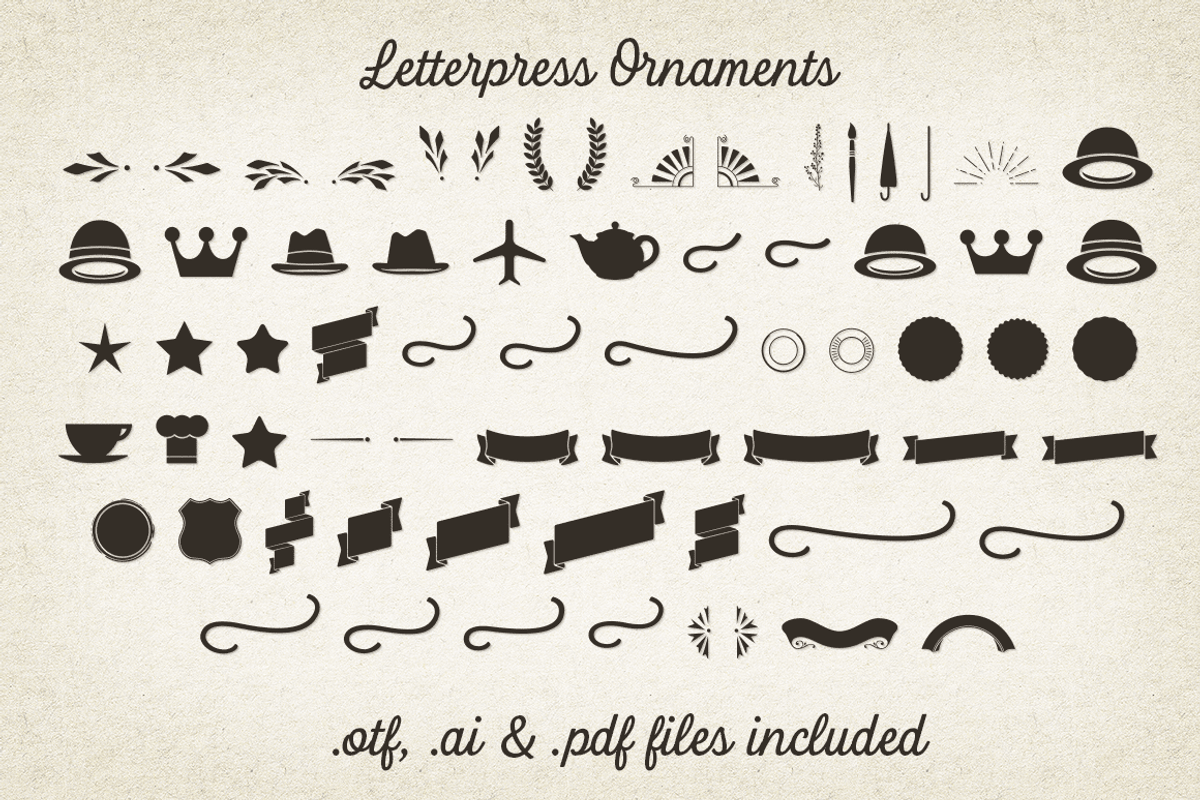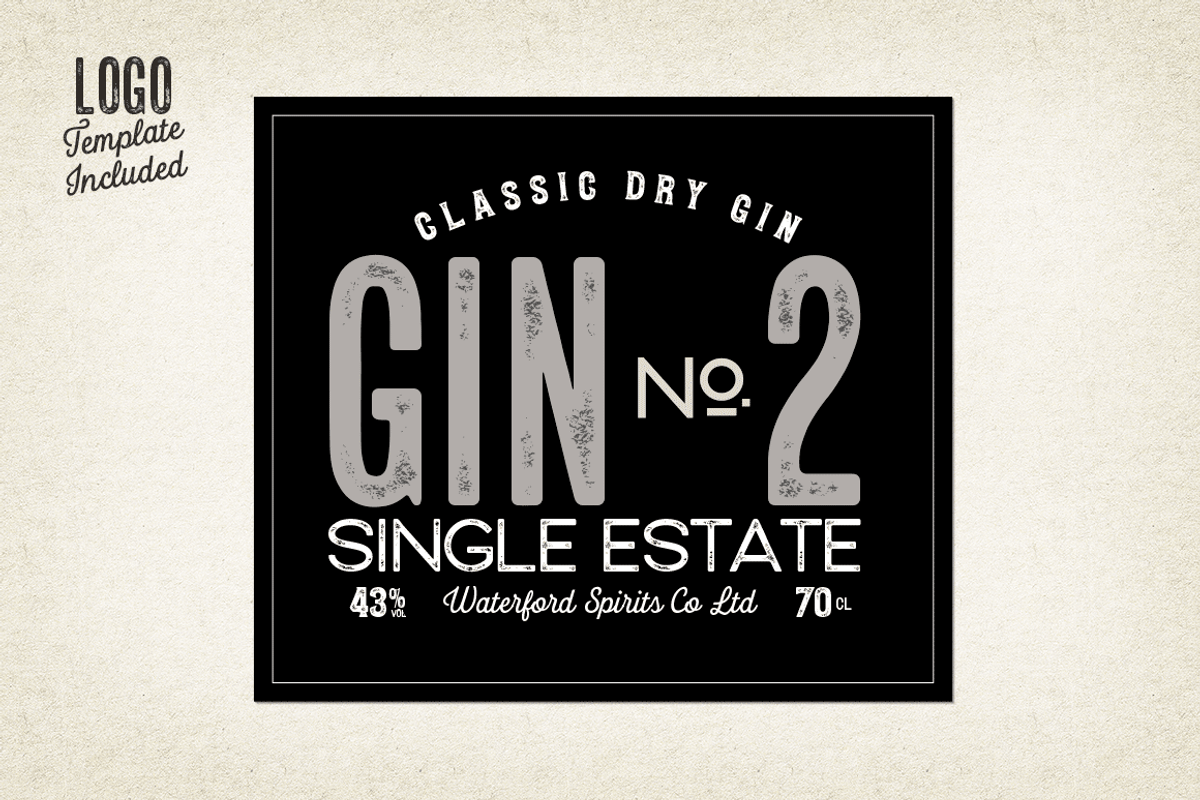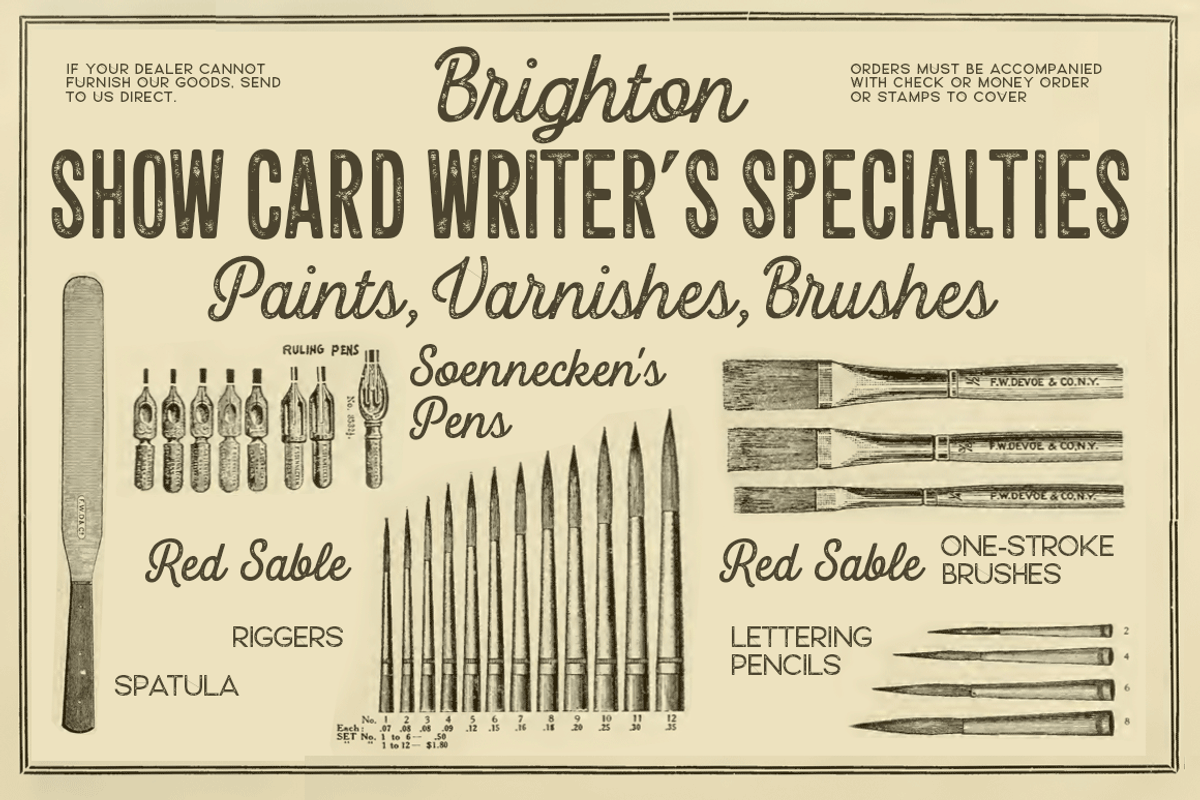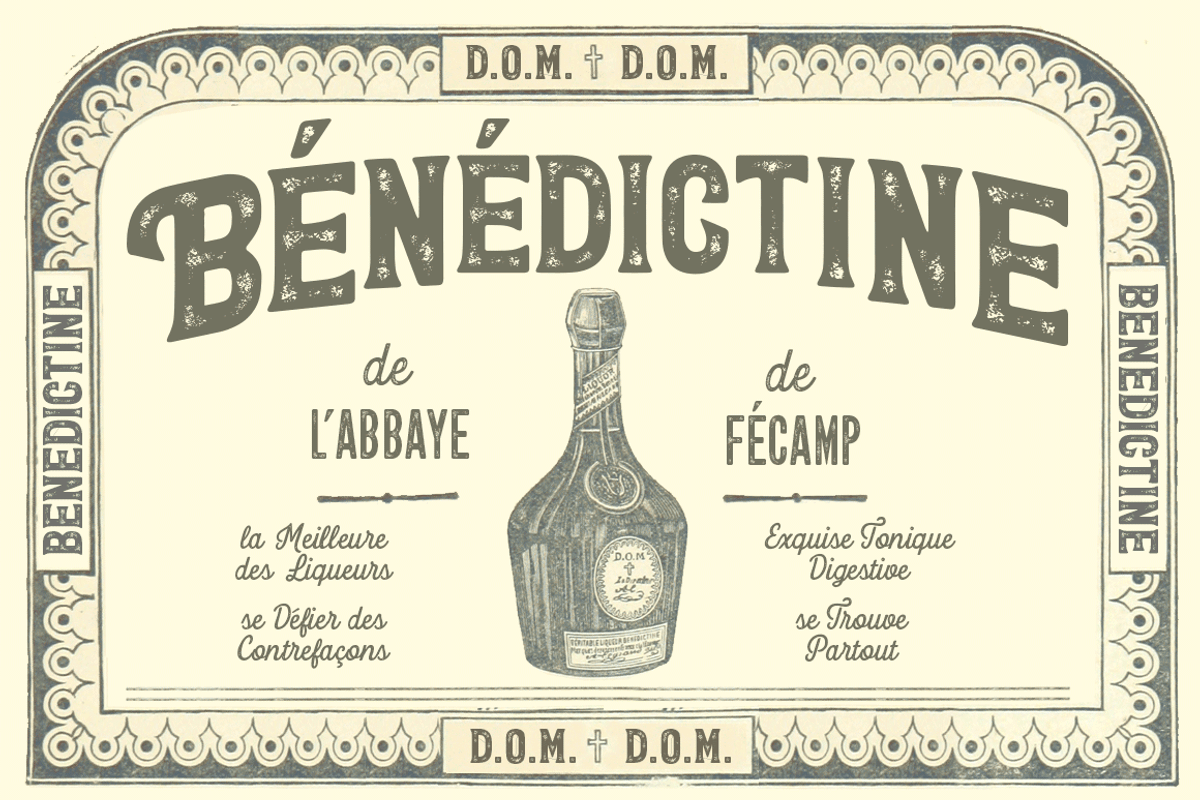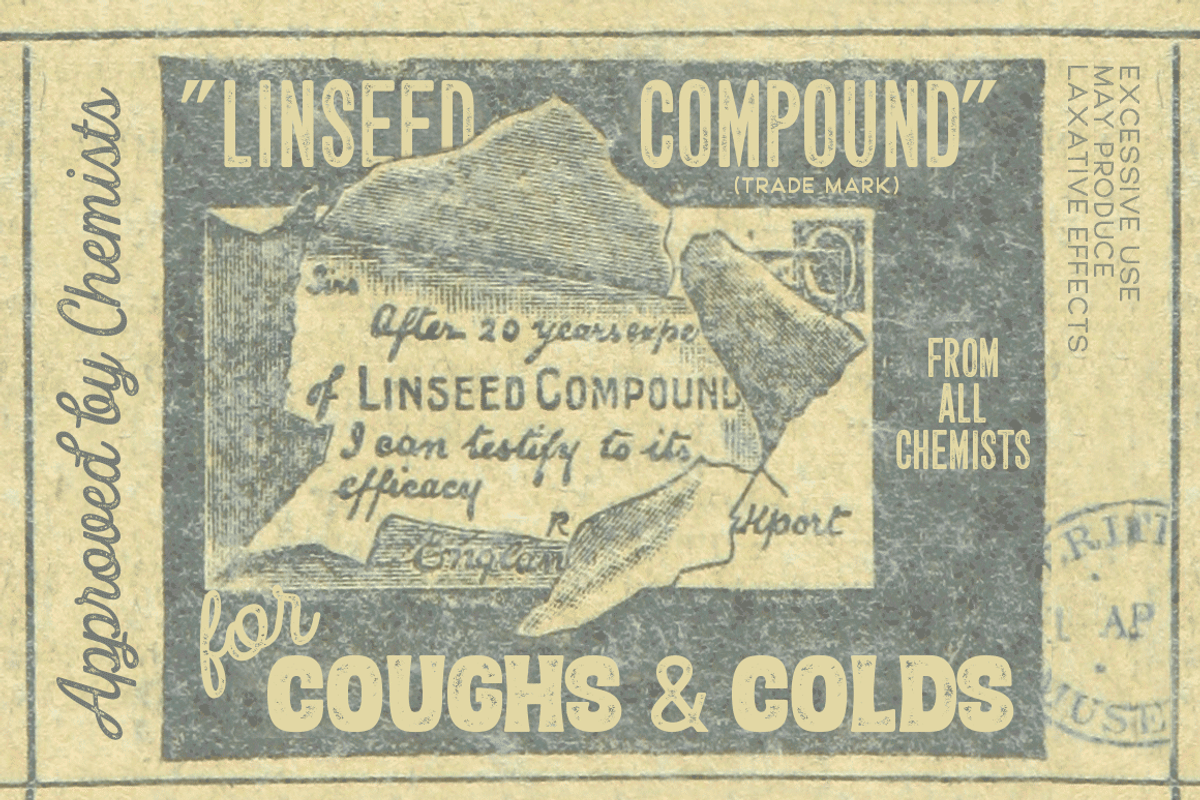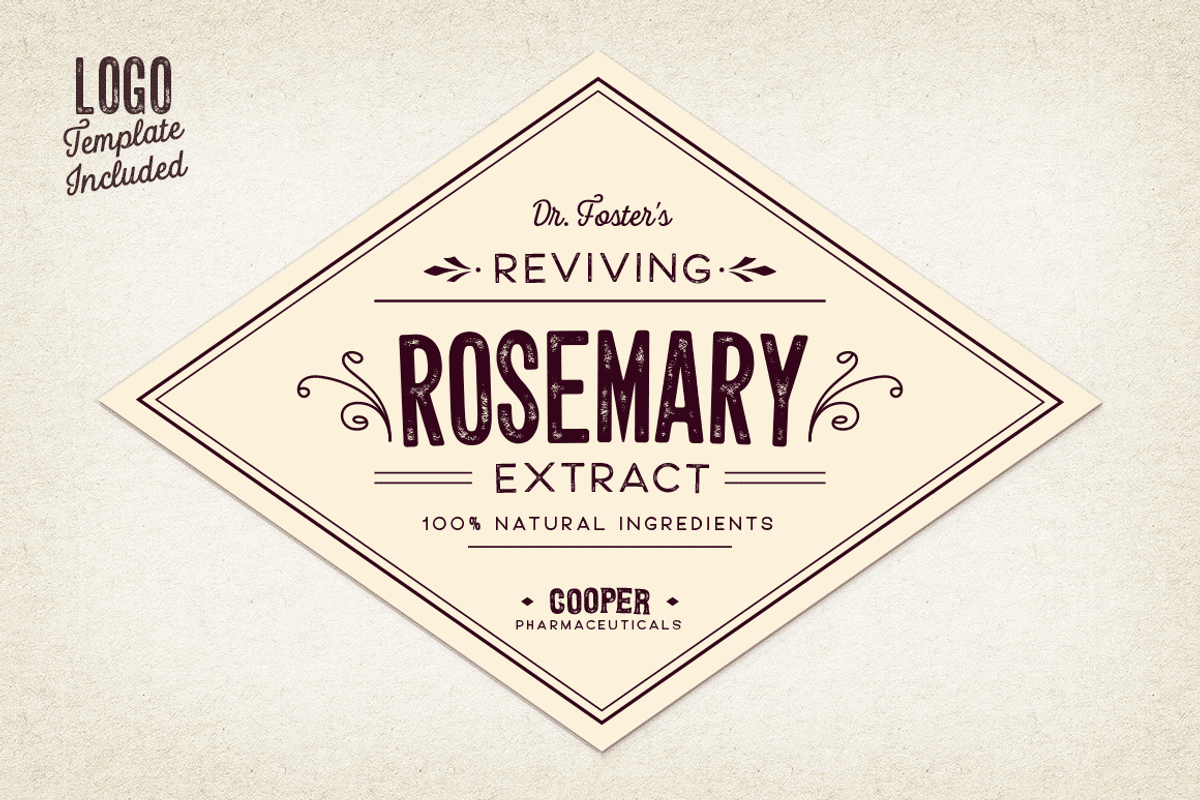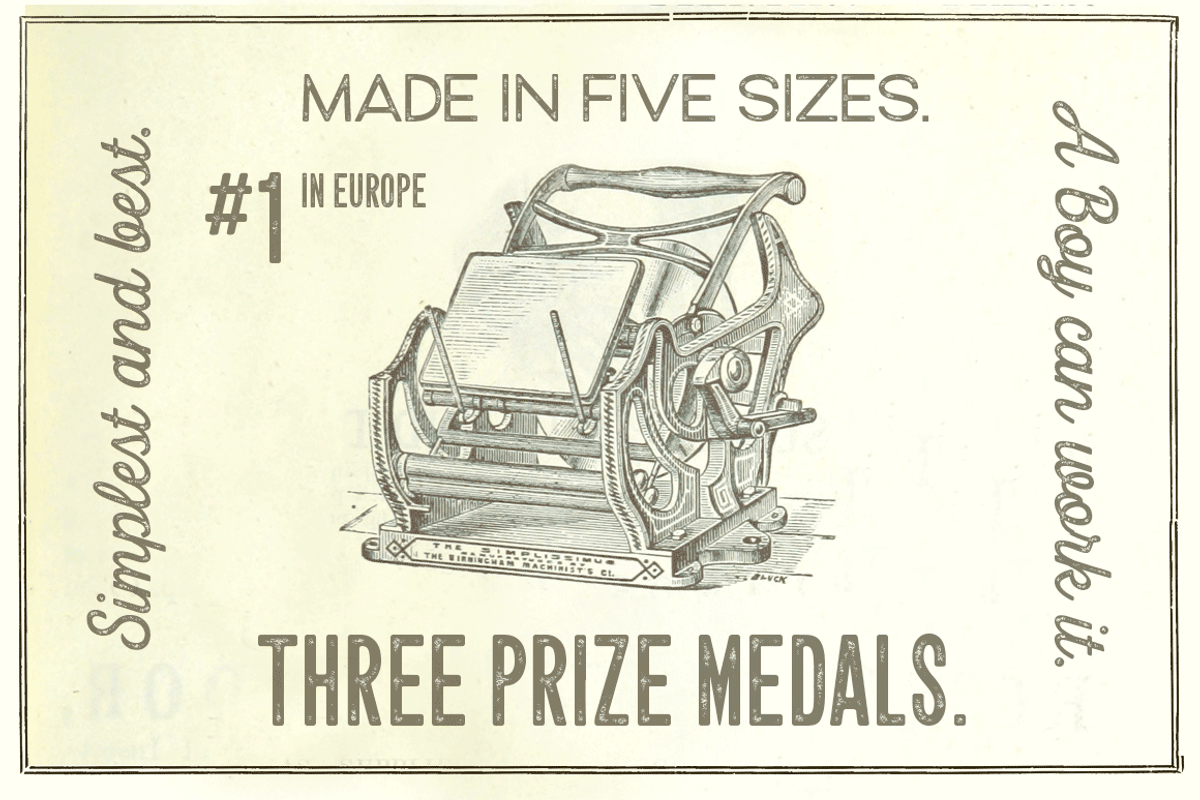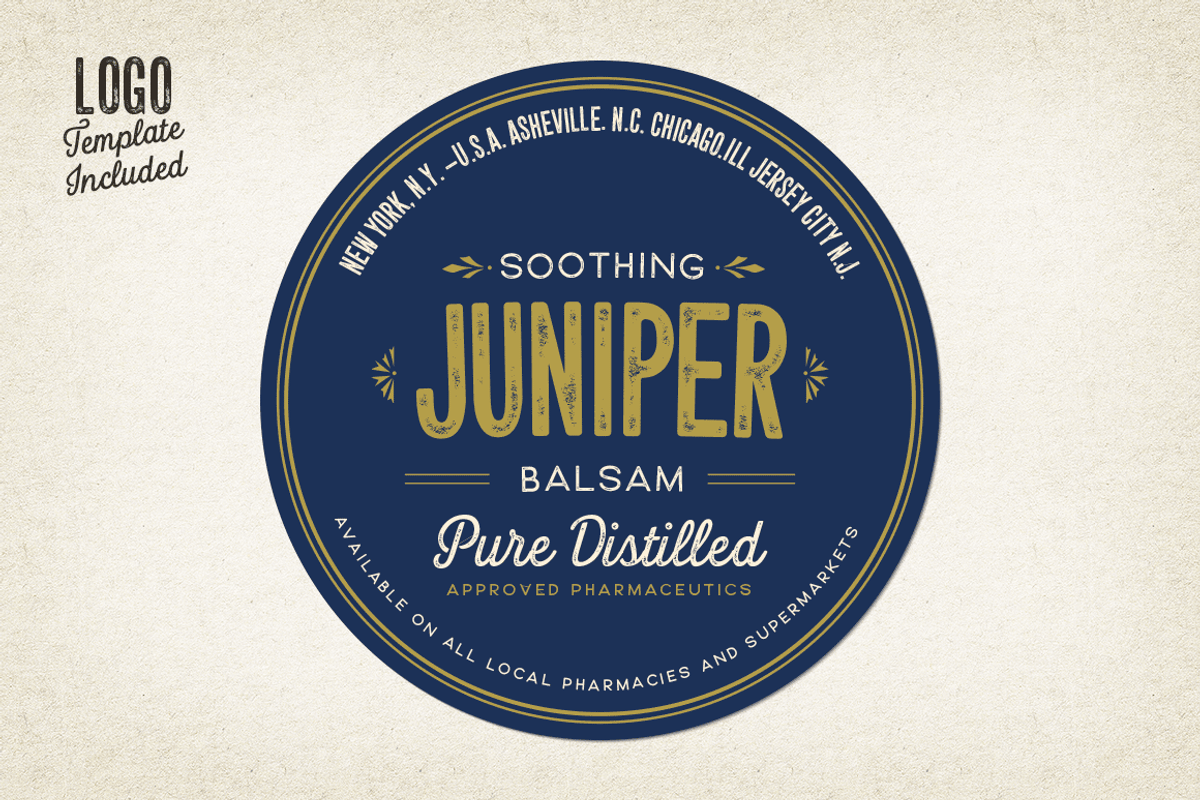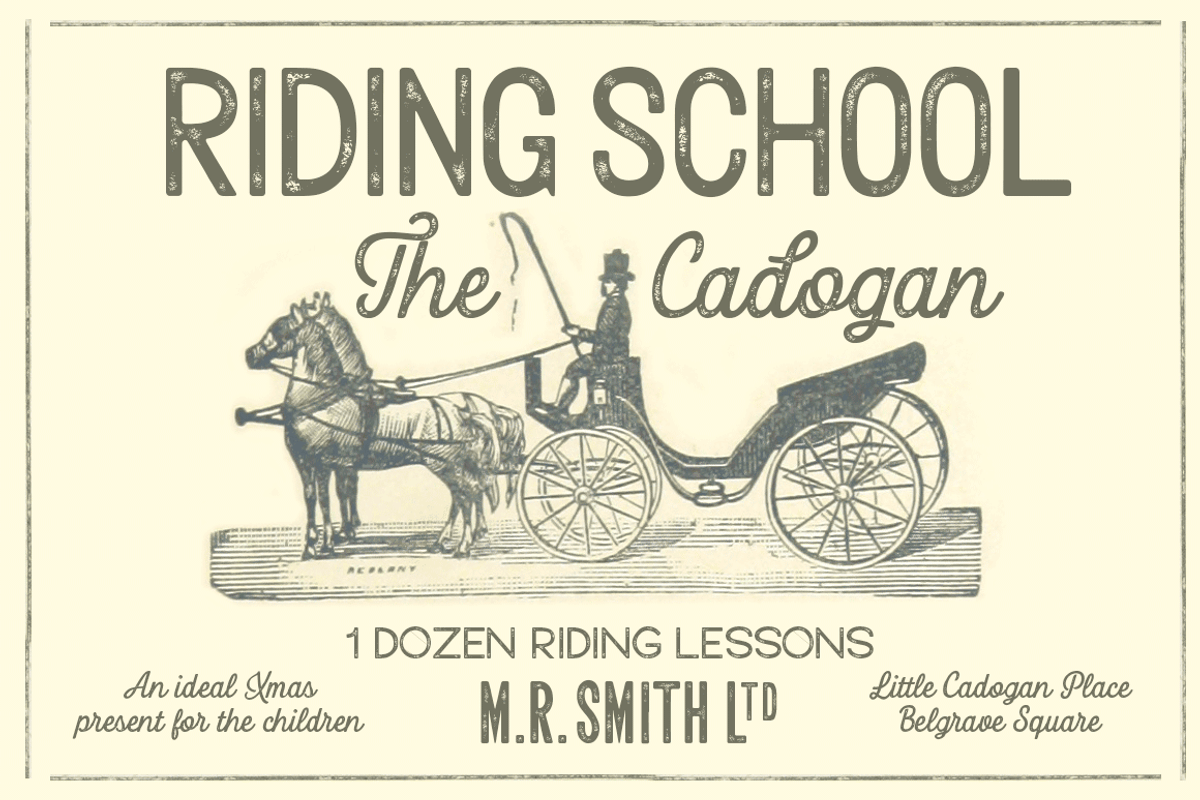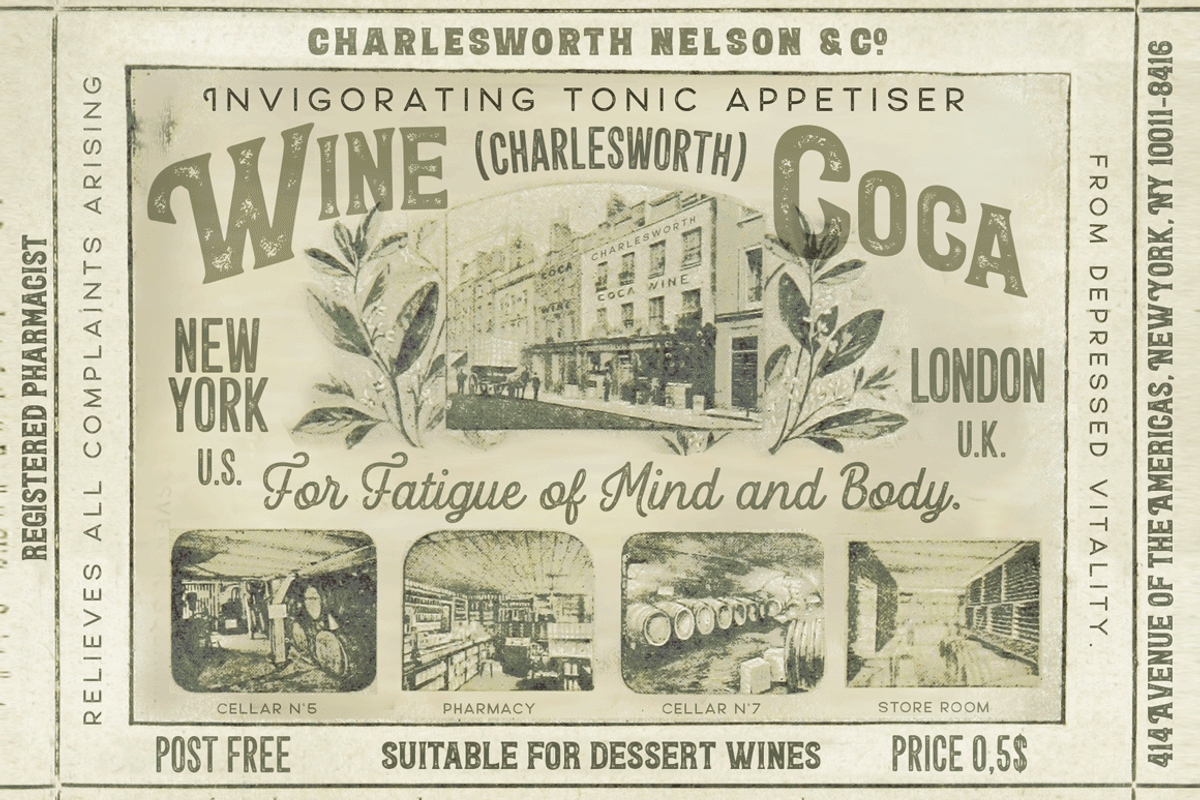
Letterpress Studio -Crafted Vintage Goods
Letterpress Studio includes following
- 7 fonts - a textured and clean version of each
- Ornaments
- Catchwords
- 25 Logo Templates
Letterpress Studios core is seven fonts - textured and clean version of each. Fonts are designed in same proportions and work great together. Here’s a short introduction to the fonts:
Letterpress Script -A connected script with lot’s of OpenType features
Letterpress Script Bold -Bold version of Letterpress Script
Letterpress Condensed -A condensed sans-serif typeface with swash uppercase characters on
Letterpress Gothic -A sans-serif typeface with swash uppercase characters
Letterpress Sans -An extended sans-serif typeface with swash uppercase characters
Letterpress Wood -A woodcut style serif typeface with swash uppercase characters
Letterpress Black -A black woodcut style serif typeface with swash uppercase characters
Letterpress Ornaments -A set of pictograms, ornaments, borders and badges (OTF, AI & PDF)
Letterpress Catchwords -A set of over 100 woodcut-style catchwords (OTF, AI & PDF)
Letterpress Templates -25 templates (AI)
Letterpress Templates is a set of 25 ready made compositions with font pairings, shapes, ornaments and ready made 2-4 color schemes for each. Templates can be used as such or as a starting point for your own project.